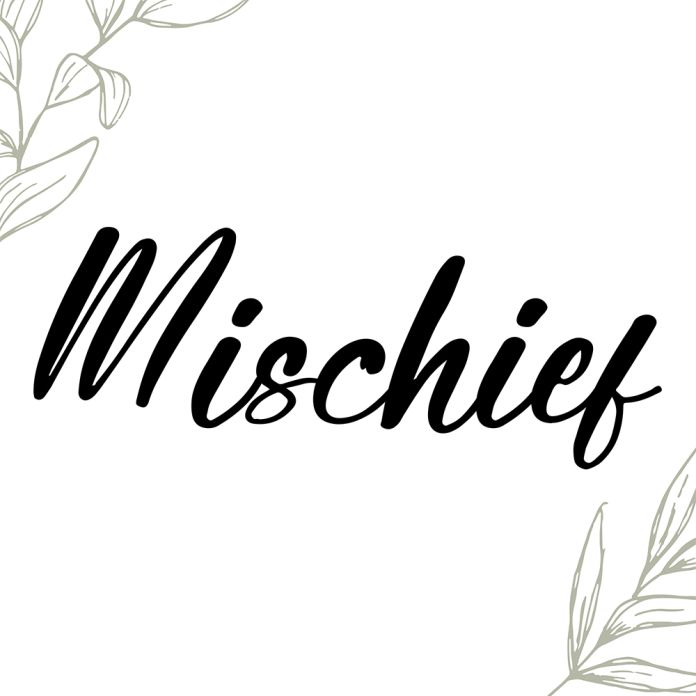
Mischief is a gorgeous script font with a contemporary atmosphere and impeccable form, inspired by timeless classic calligraphy. Mischief is PUA encoded which means you can access all of the amazing glyphs and ligatures with ease!